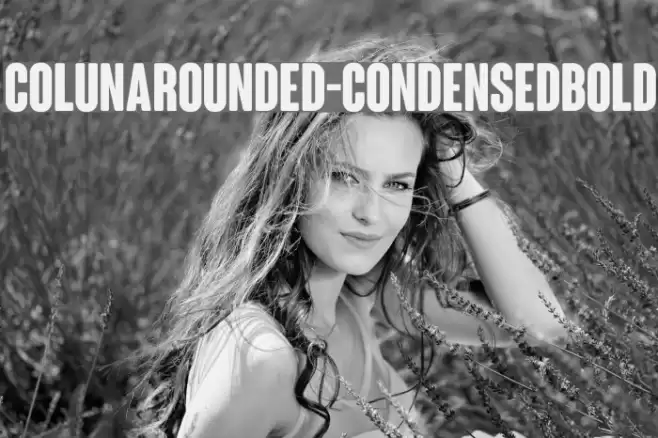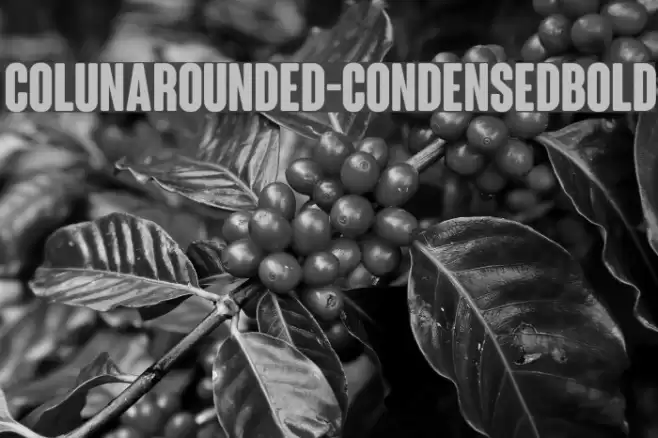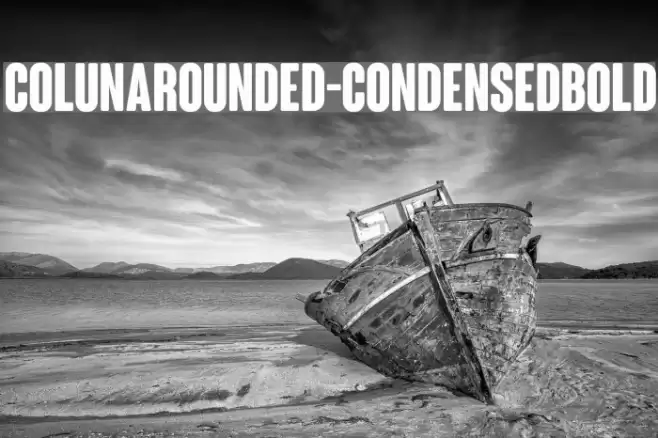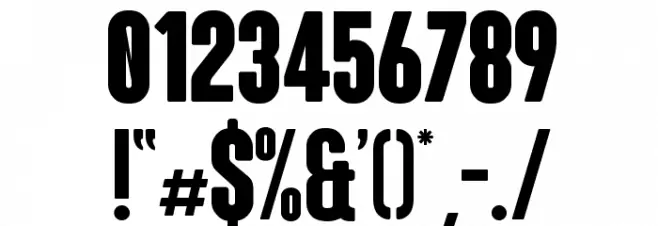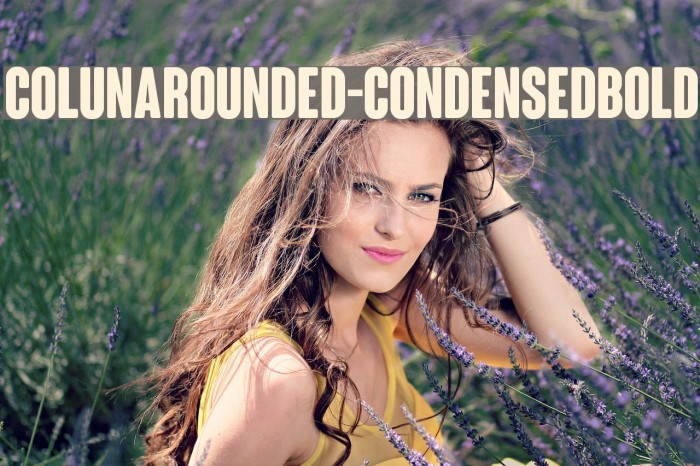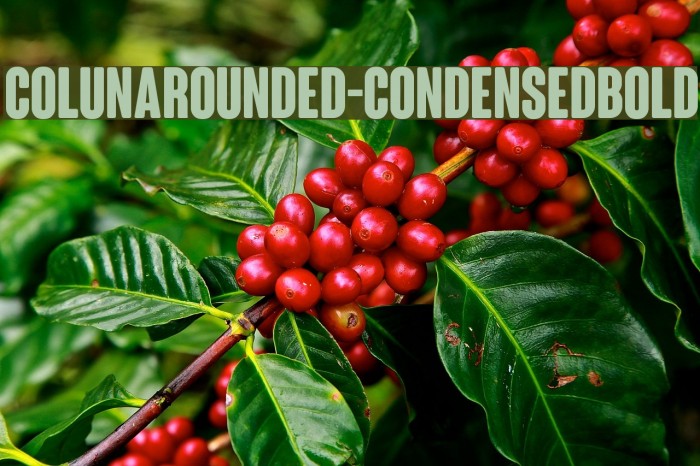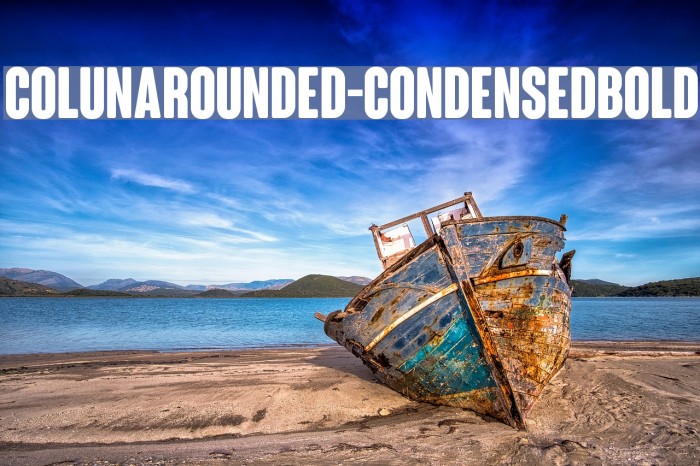
ColunaRounded-CondensedBold Font
ColunaRounded-CondensedBold Description
This font features a bold and condensed style with rounded edges, giving it a modern and approachable appearance. The characters are tightly spaced, enhancing the compact and impactful look. The uppercase letters are prominent and assertive, while the numerals and special characters maintain the same boldness and rounded characteristics. This font is designed to capture attention with its strong presence and smooth curves, making it suitable for various design applications where a bold statement is needed.
A bold, condensed font with rounded edges and tight spacing from Futuristic fonts.
- Proposed Projects: Ideal for headlines, posters, branding, and advertising where a strong, modern look is desired.
- Character Spacing: Tight